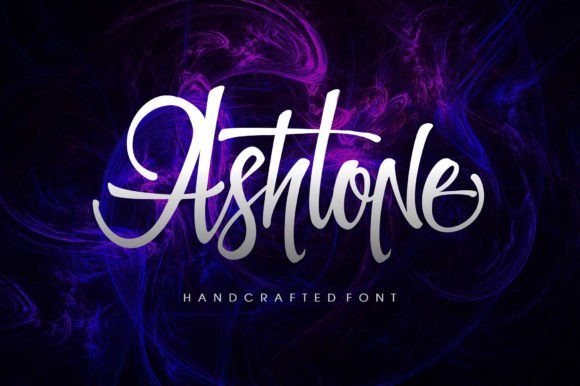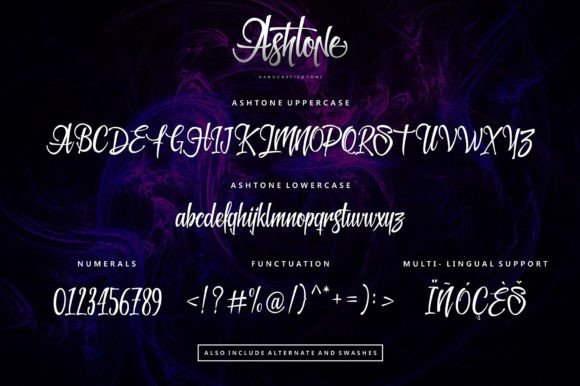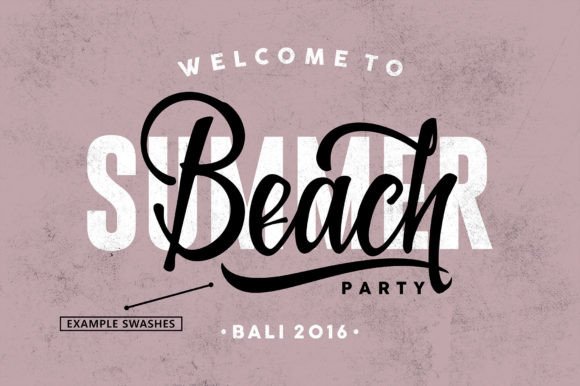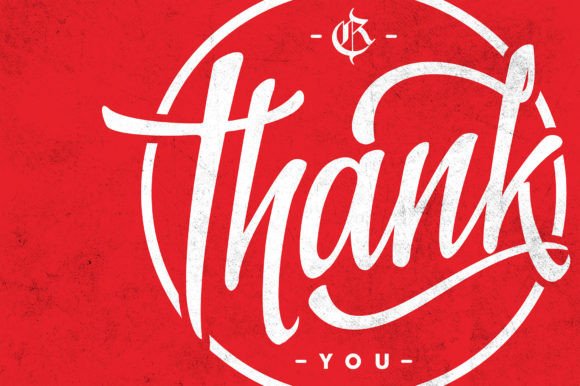
Ashtone Font: Elegant Handwritten Script for Signature Logo Design
About the Ashtone Font
Elevate your designs with Ashtone Font, a font that combines sophistication with readability. Ashtone is a new and elegant handwritten font perfect for any design you wish to create! Add it to your logos, cards, T-shirts, shopping bags, book titles, magazine covers, and many more, and make them outstanding!
Ashtone’s elegant, handwritten style excels in headlines, short text blocks, and branding applications where a touch of sophistication is desired. It works particularly well for logos, invitations, and short-form marketing materials. However, its intricate detail makes it less suitable for body text or UI elements where readability is paramount. Extended use could hinder comprehension.
Consider pairing Ashtone with a clean sans-serif like Montserrat for a balanced contrast, or a classic serif such as Garamond for a more traditional feel. For a more modern aesthetic, a geometric sans-serif like Futura could create a striking juxtaposition.
Ashtone projects a sophisticated and slightly whimsical personality, ideal for brands aiming for a refined yet approachable image. Its elegance is tempered by a friendly informality, making it versatile for various applications.
Ashtone Font Usage Examples
Ashtone Font Example